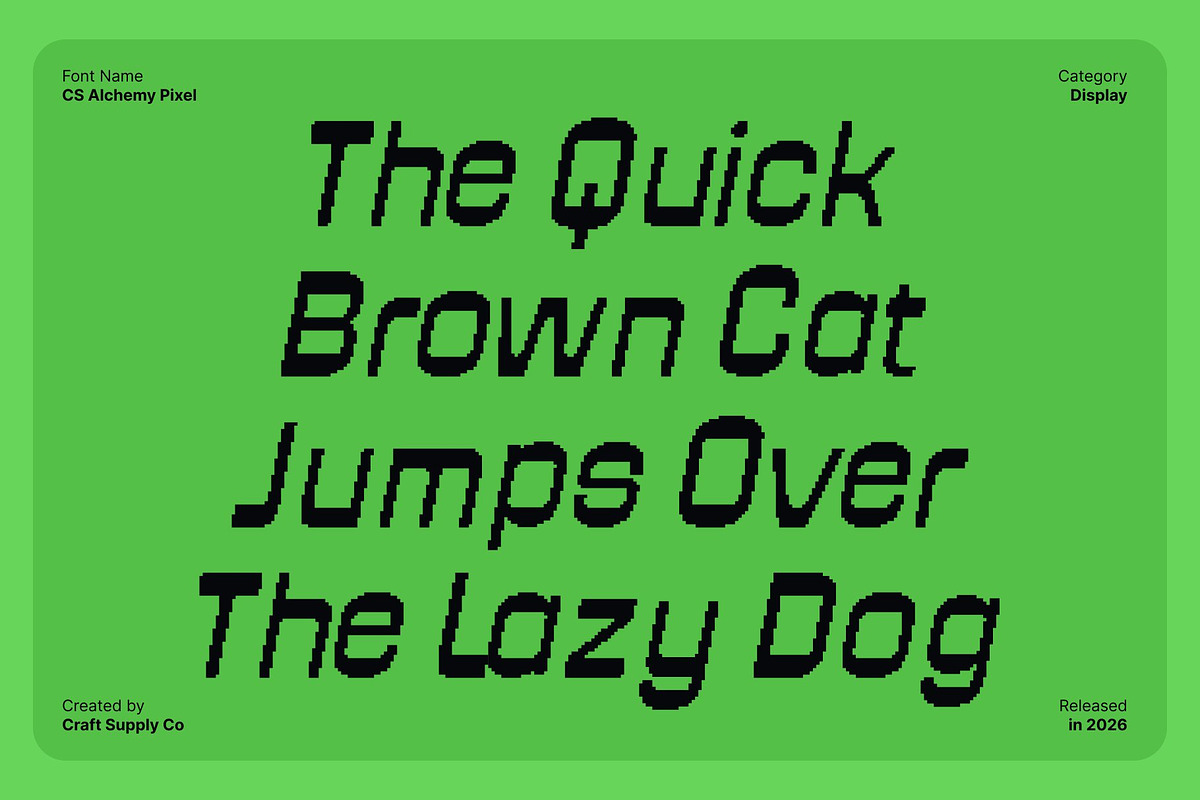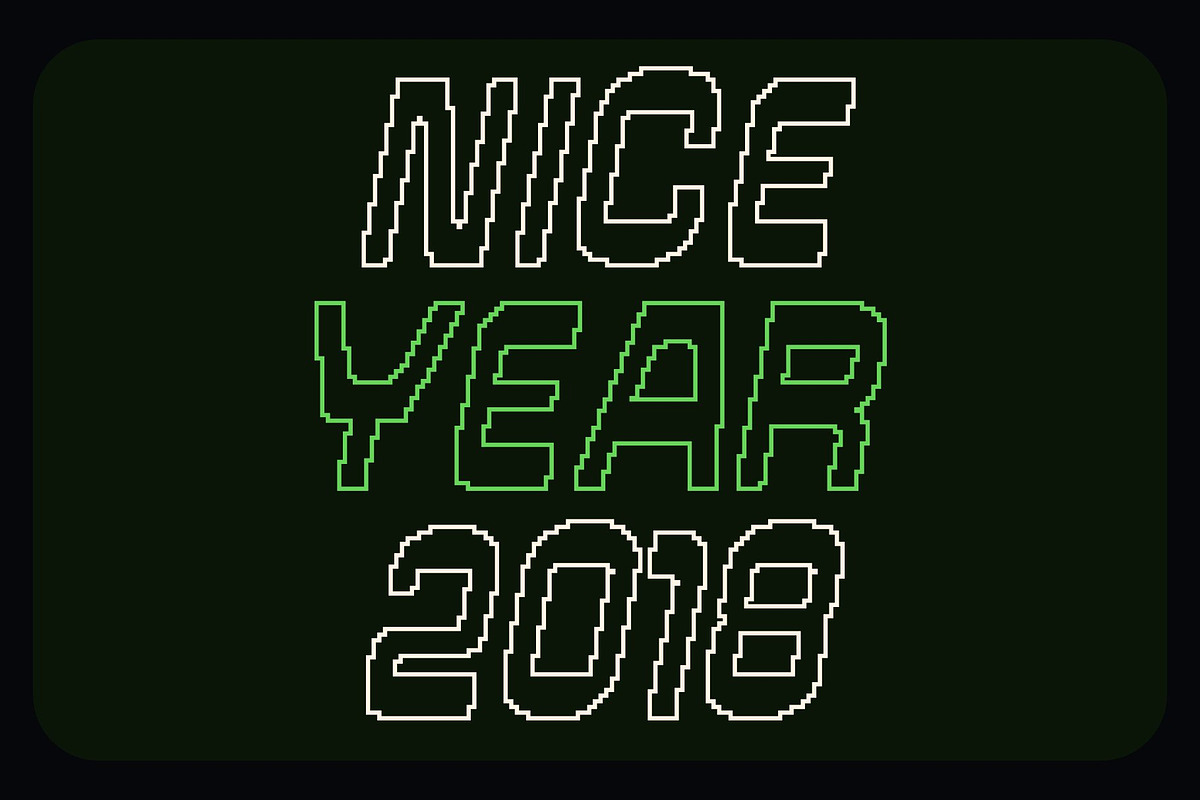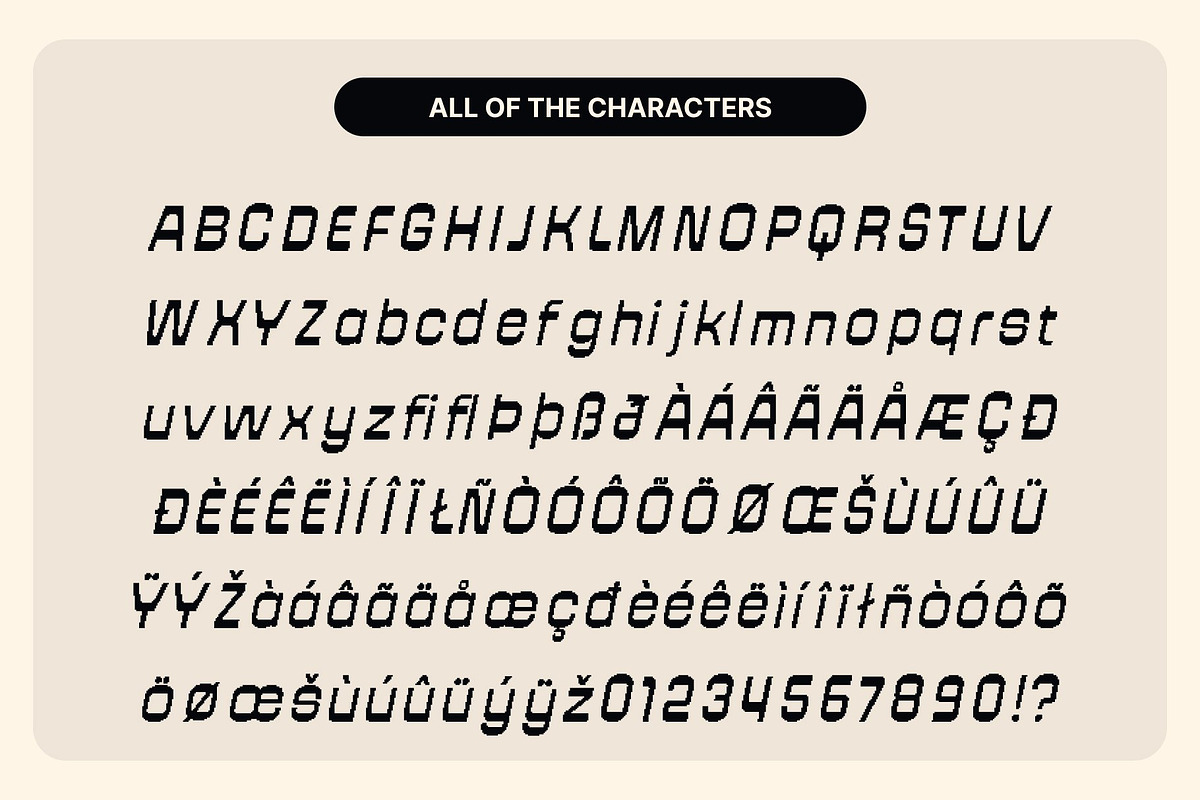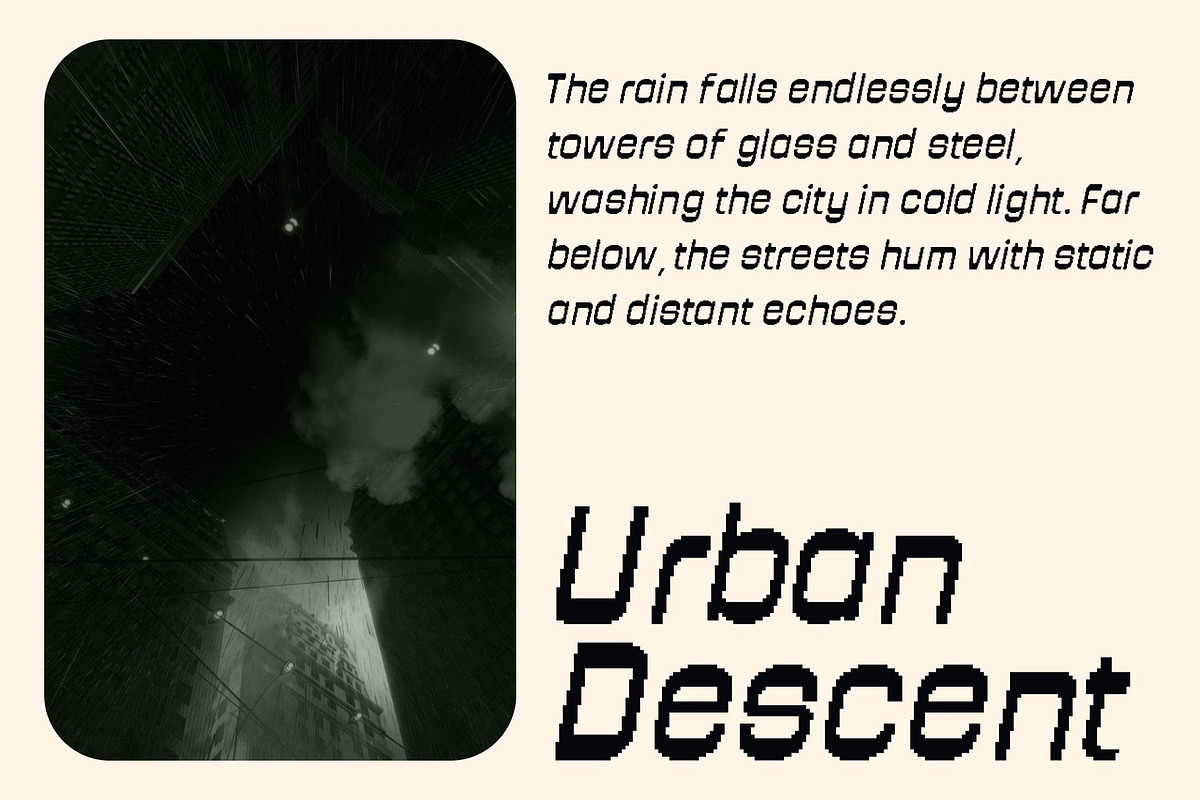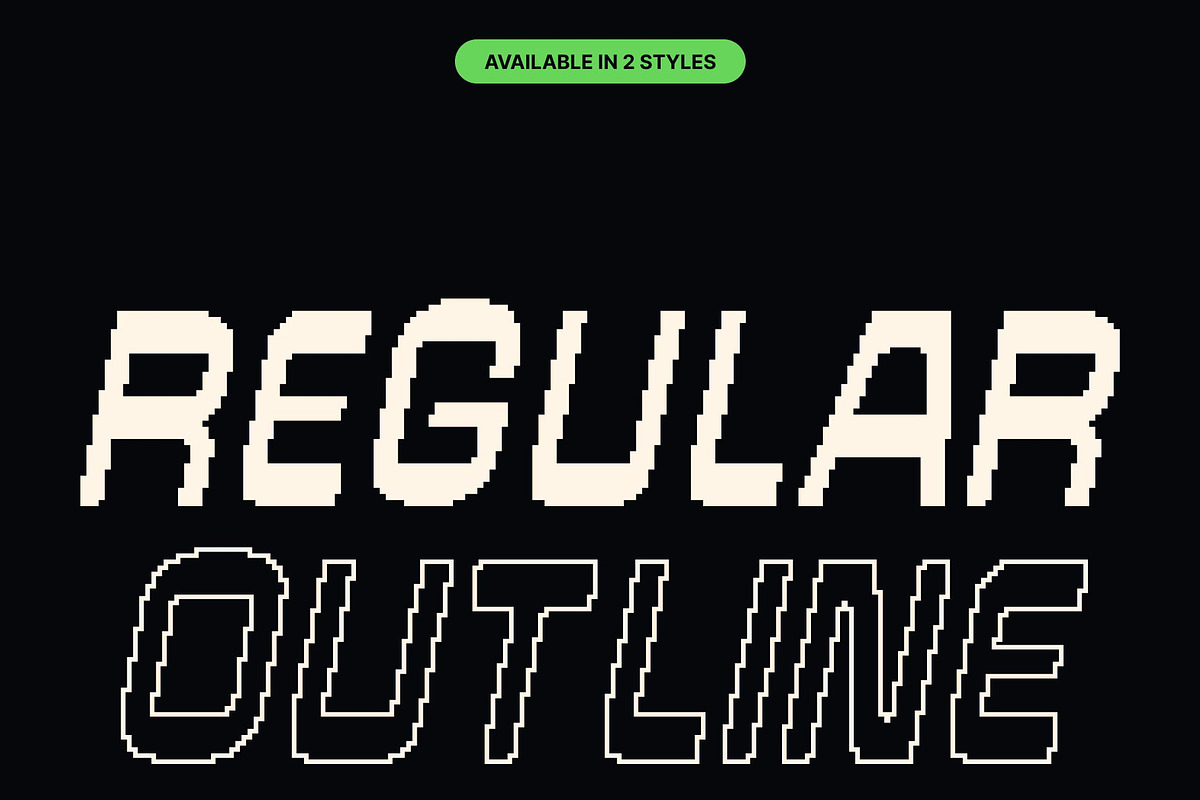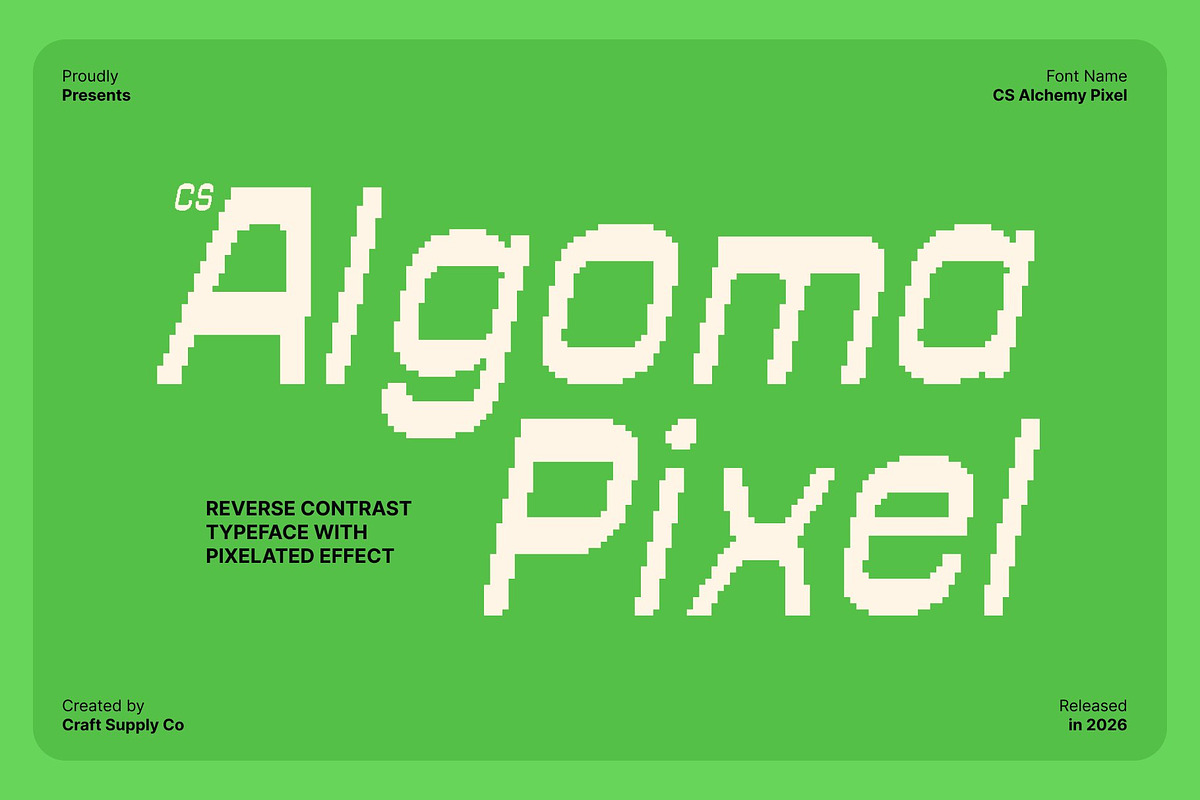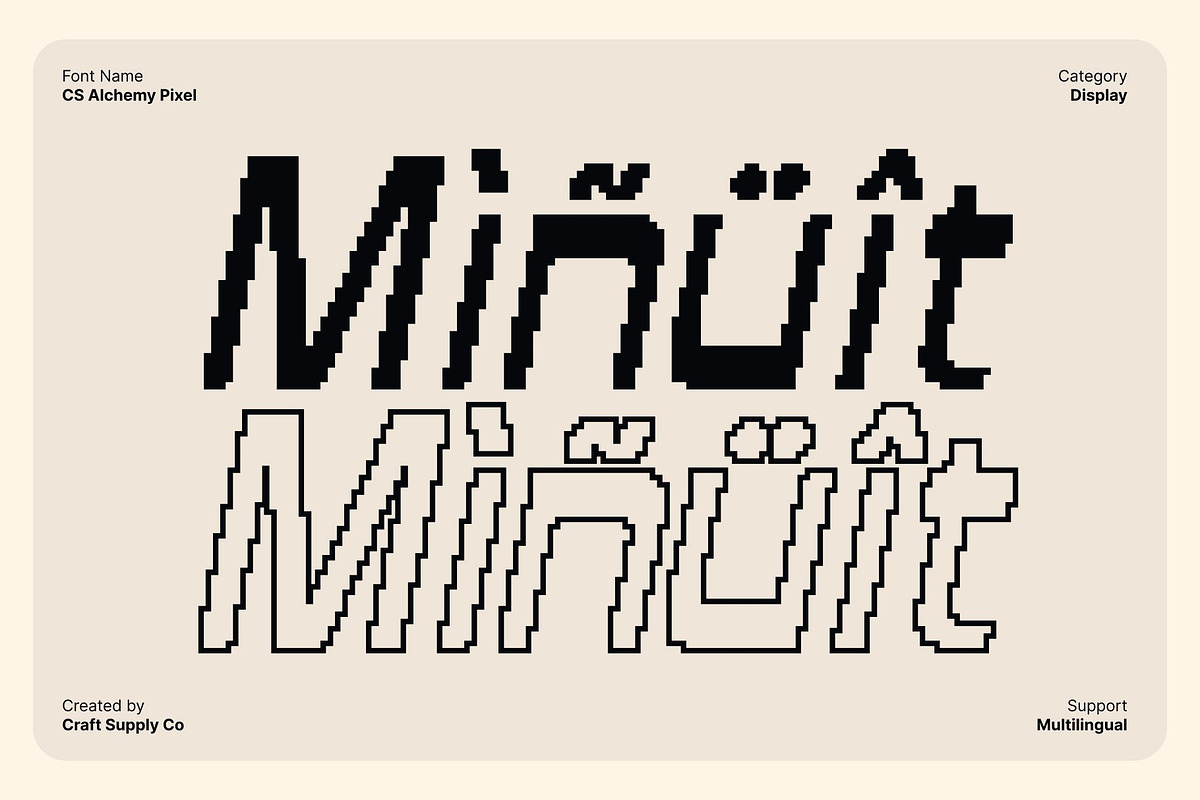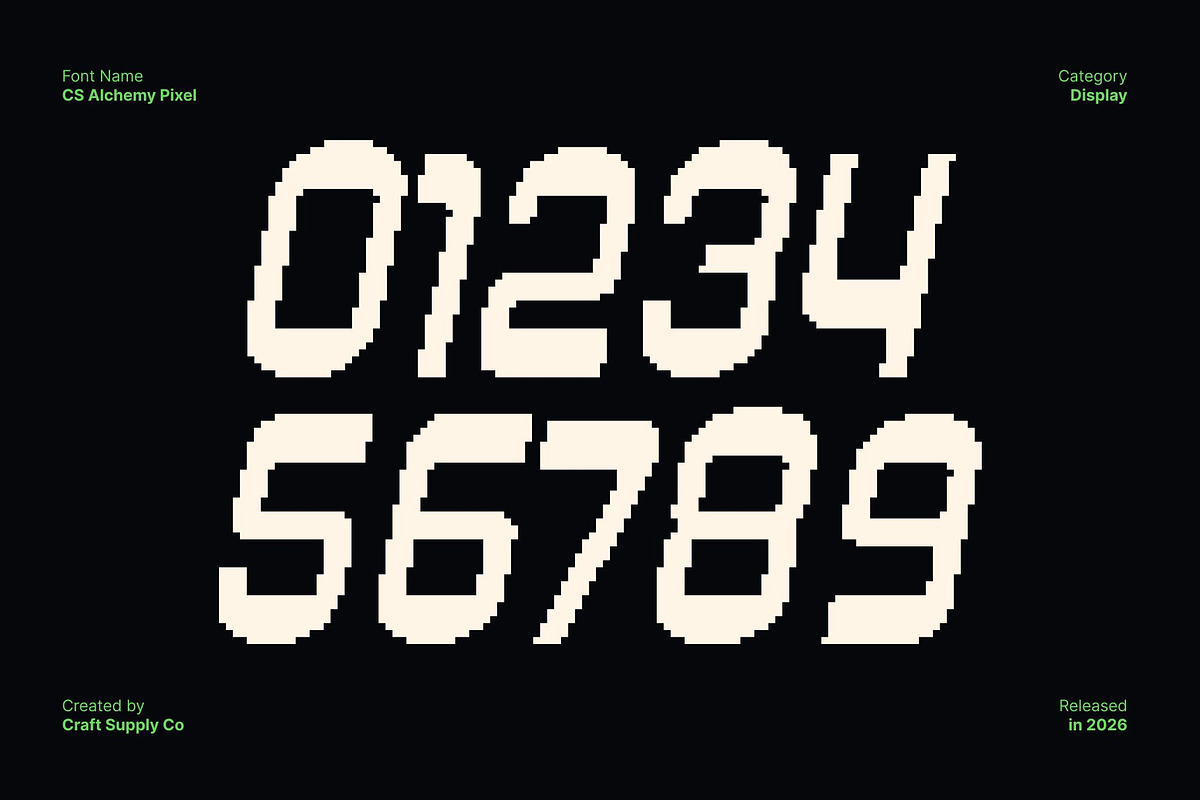
CS Algoma Pixel
CS Algoma Pixel – Retro Energy with Modern Precision
Reverse Contrast Sans Serif with Modular Pixel Aesthetics This is a reverse contrast sans serif display font that fuses retro energy with modern digital precision. Built from bold geometric shapes and modular forms, it features subtle pixel detailing that recalls old digital screens and early computer graphics. The reversed contrast creates an eye-catching rhythm, giving each letter a playful yet structured appearance that feels nostalgic, modern, and distinctly digital.
Retro Inspiration with a Modern Digital Twist Inspired by mid-century signage and vintage typography, this font reinterprets classic aesthetics through a pixel-based lens. The reverse contrast challenges traditional letterform conventions, while the pixel construction adds a retro-tech flavor.
Bold, Distinctive, and Readable Letterforms The strong modular letterforms of this font communicate confidence and creativity. Balanced proportions and geometric precision ensure clarity, while the reversed contrast and pixel edges add depth and character. This makes the font ideal for headlines, logos, and display text that need to stand out while remaining readable and visually engaging.
Perfect for Branding, Posters, and Retro-Digital Promotion Designed for posters, branding, packaging, and editorial layouts, this font is made to make a statement. Its fusion of retro design, modern structure, and pixel detail makes it an excellent choice for bold visual identities, creative campaigns, and projects that celebrate both nostalgia and modern digital energy.